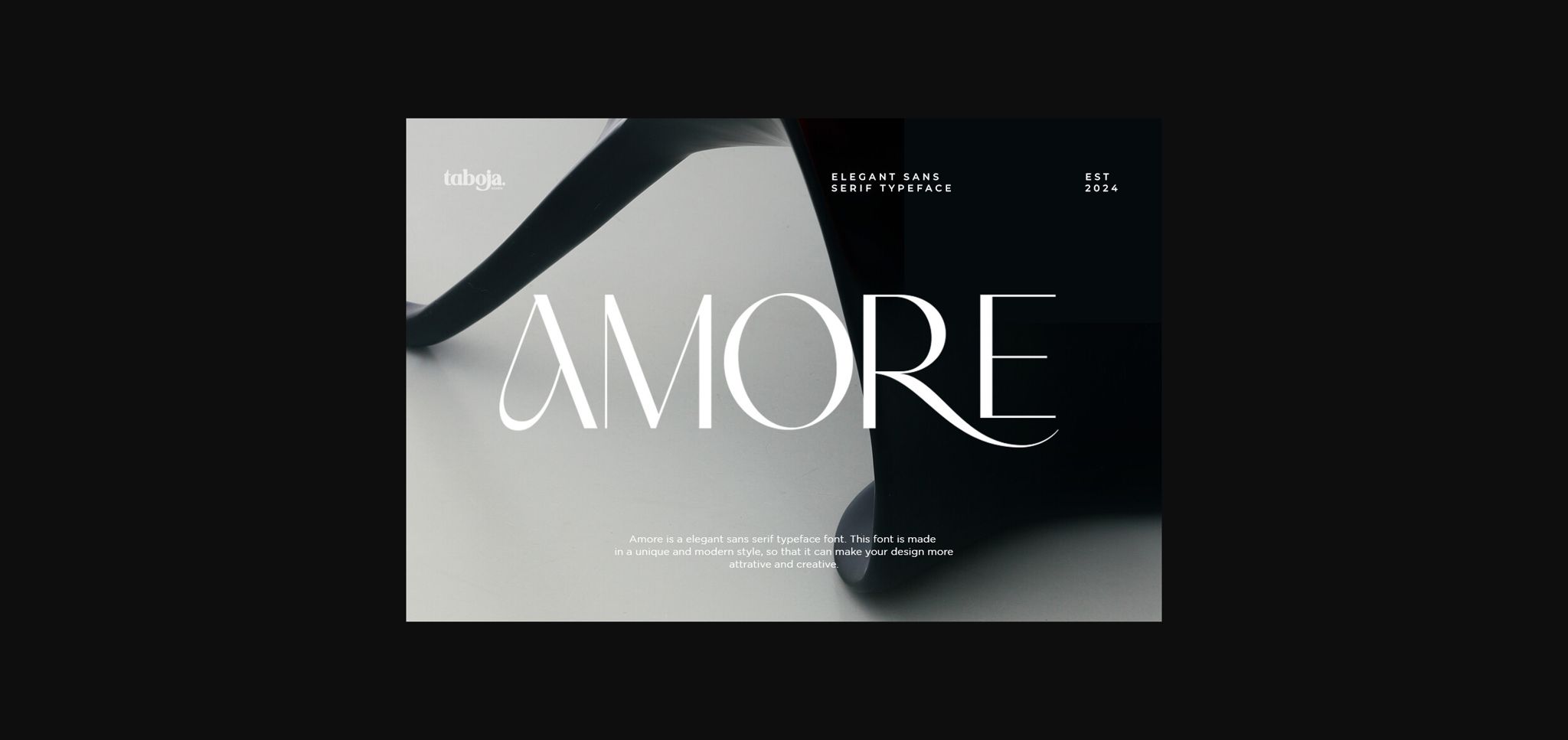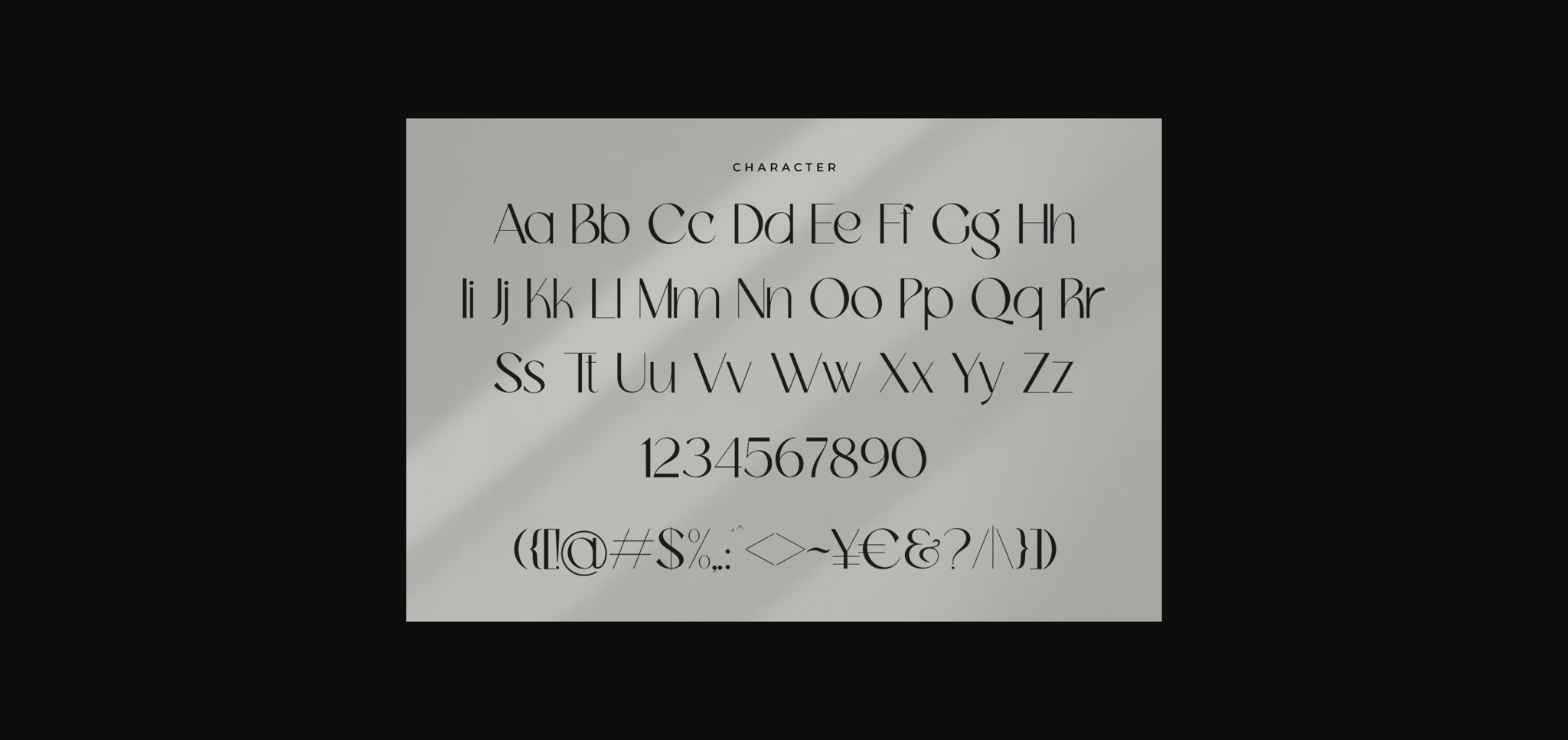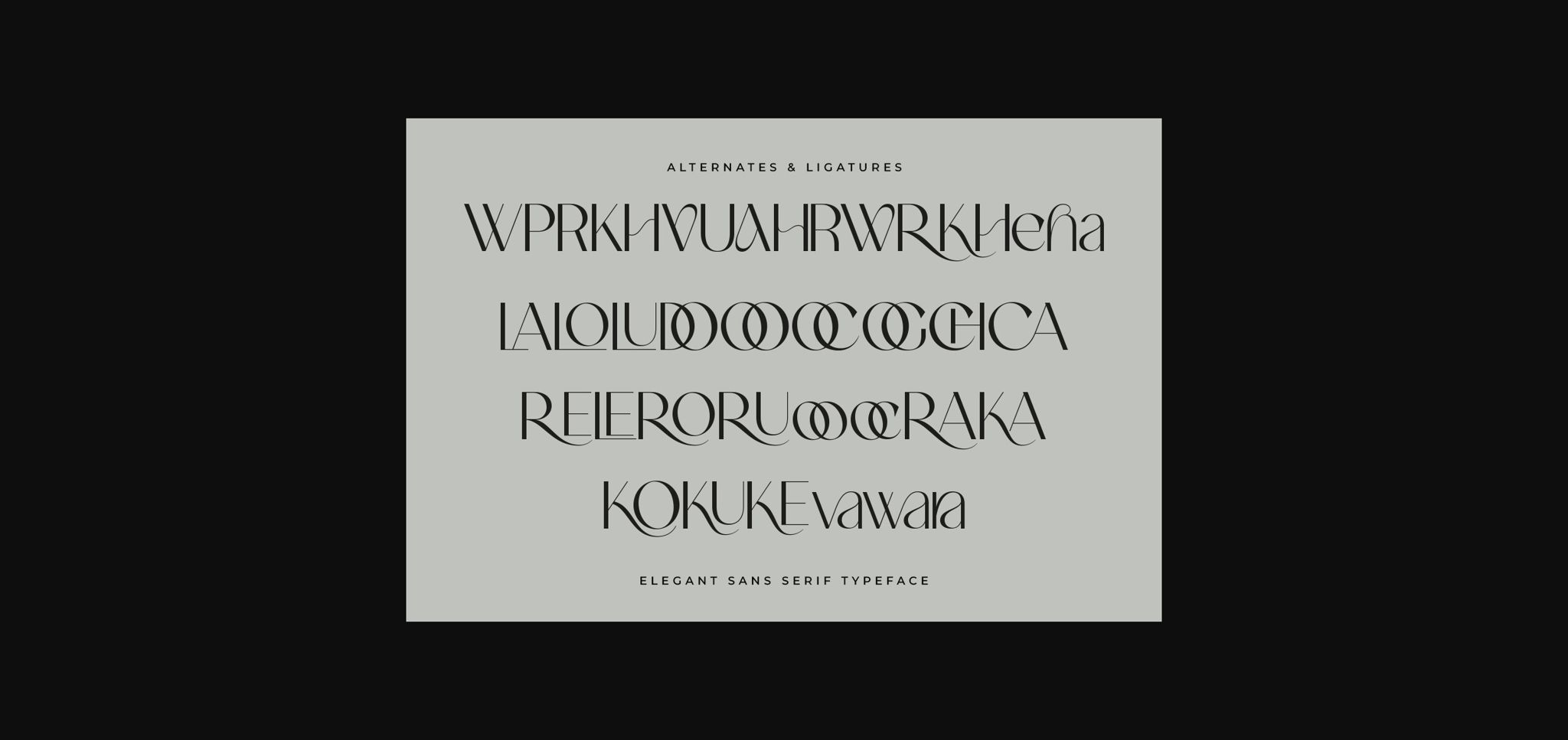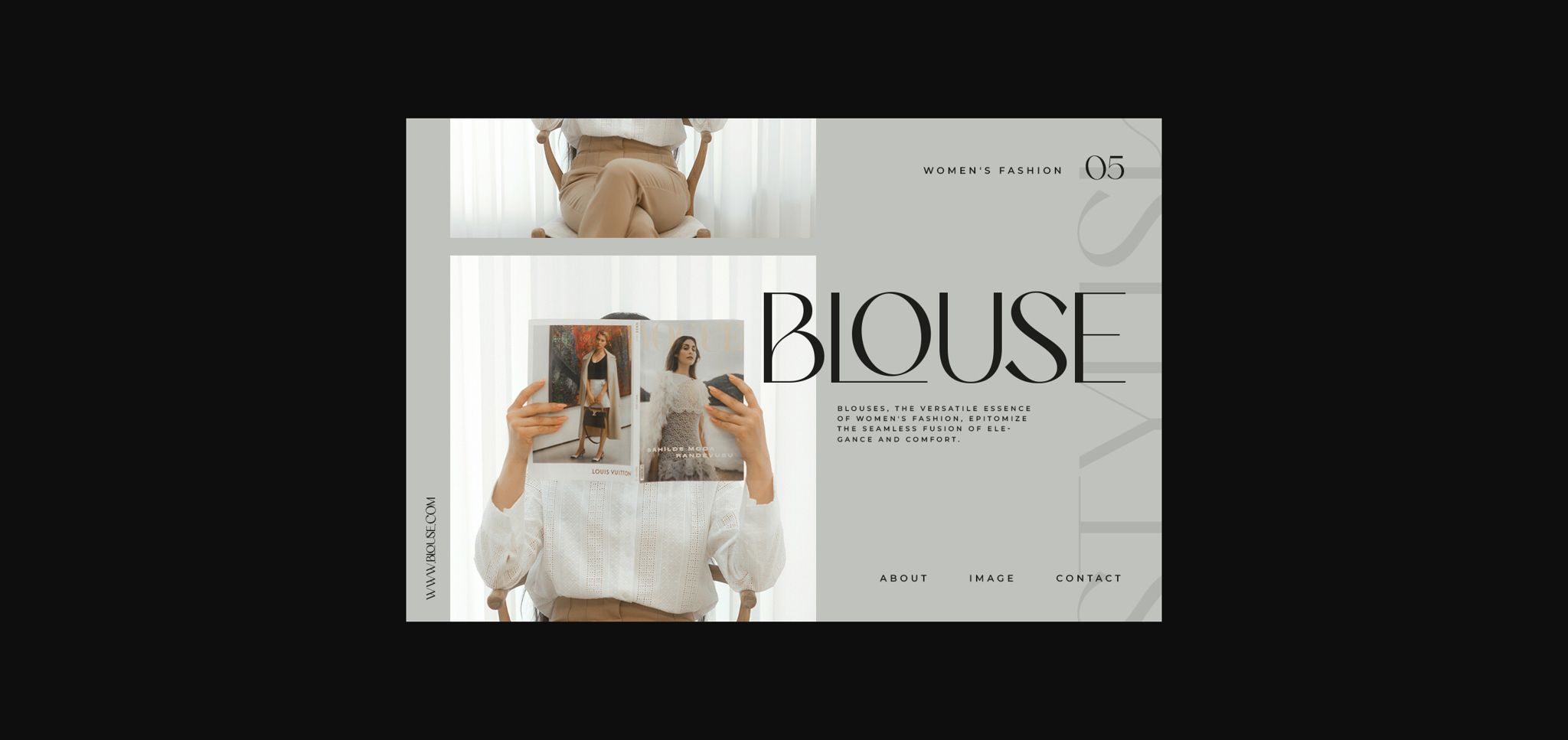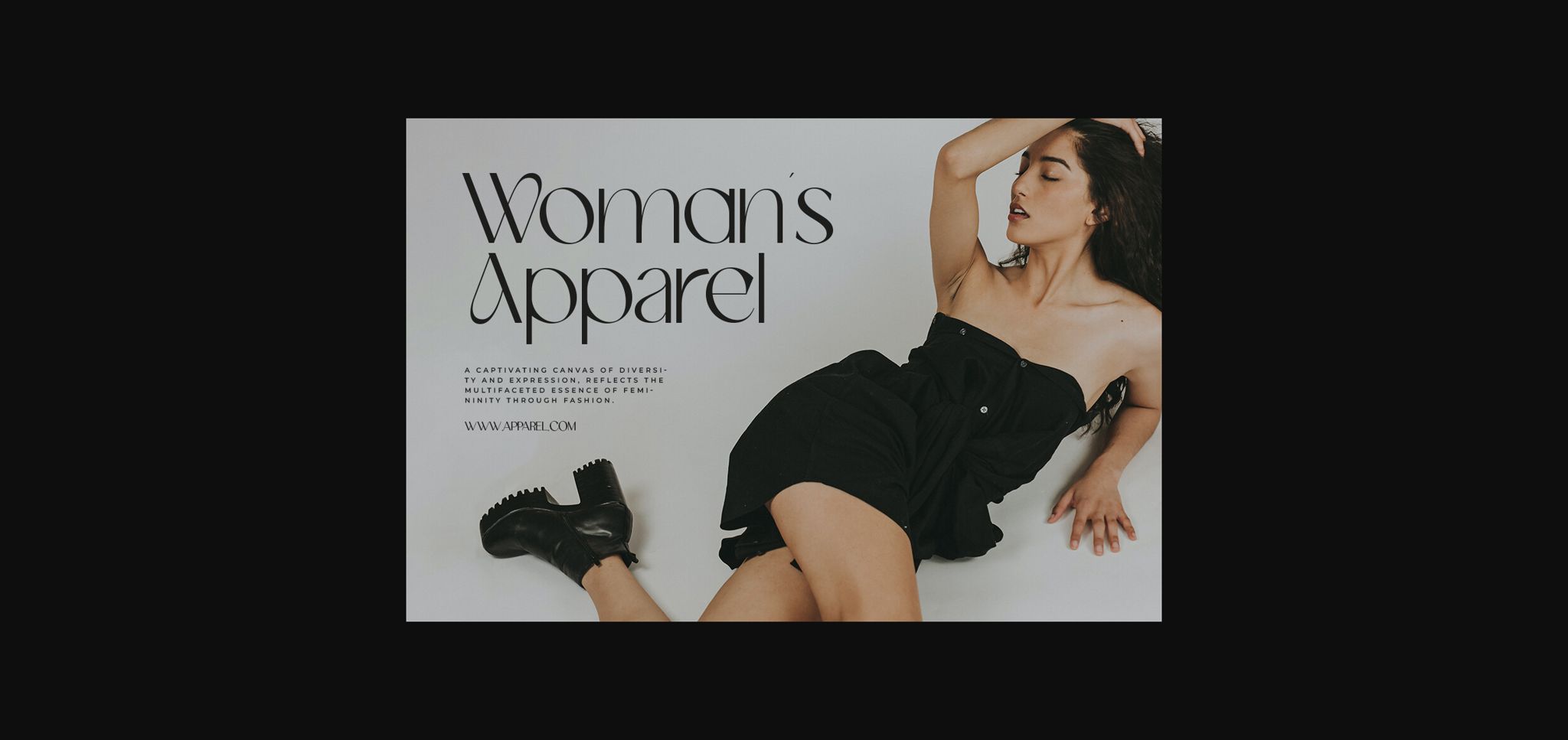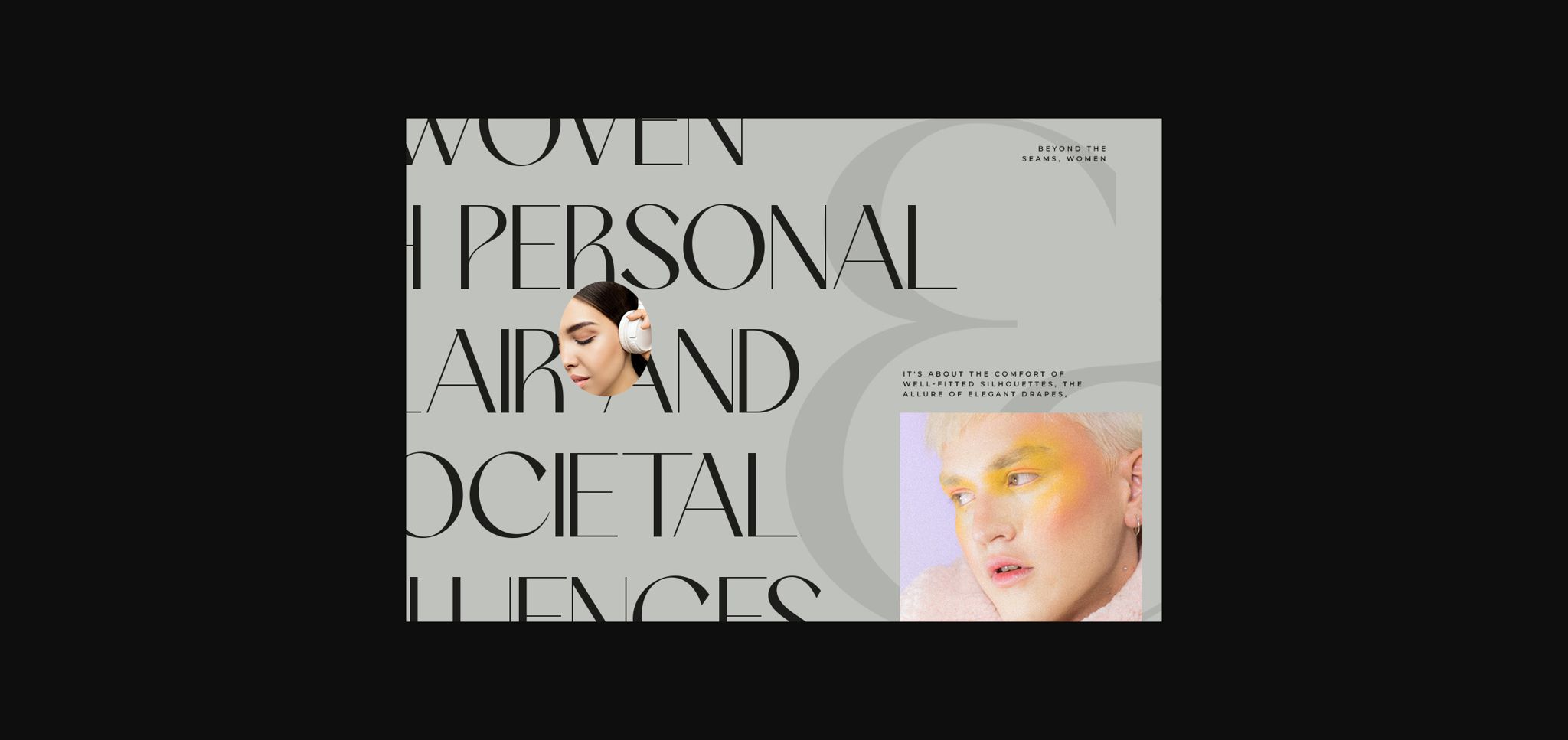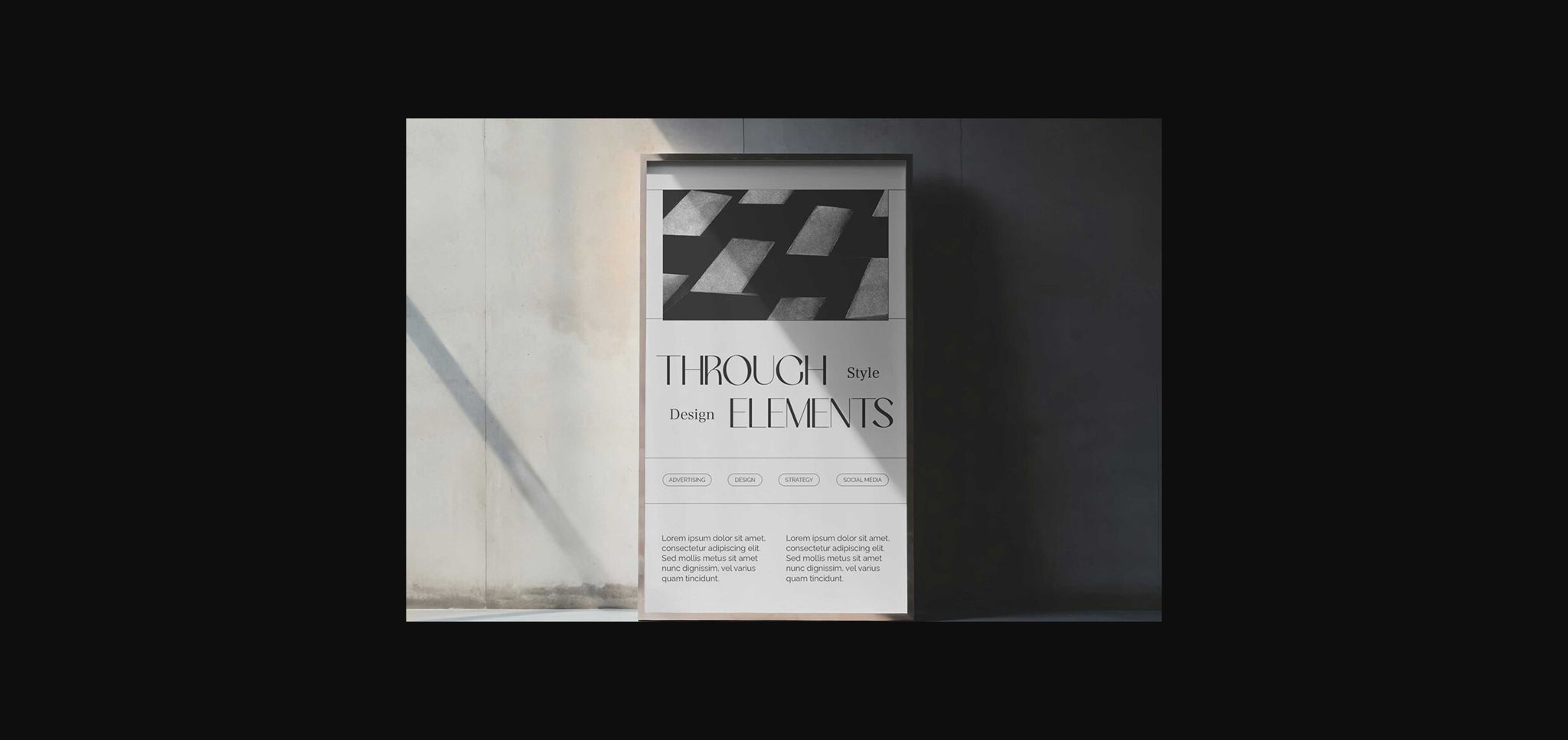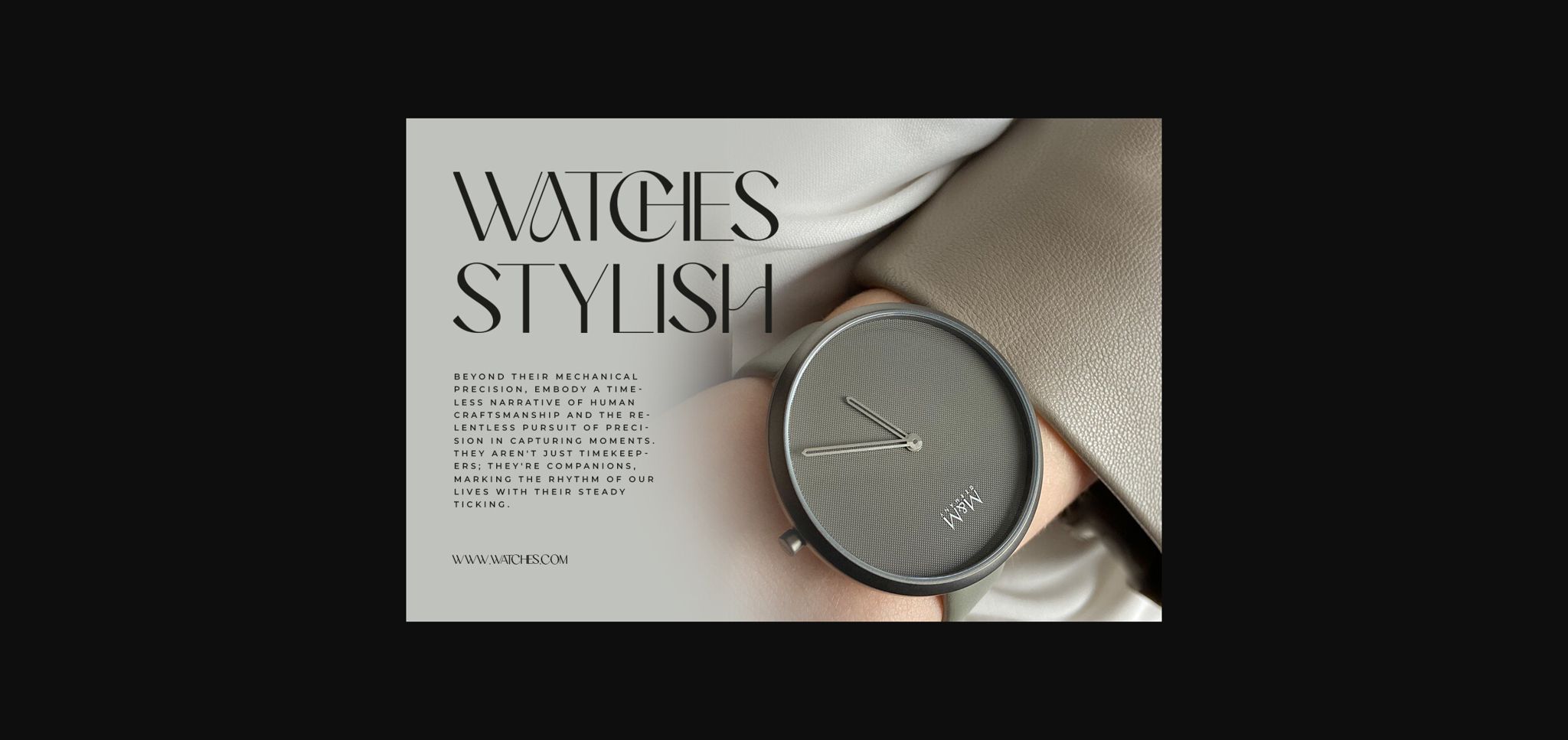
Amore Font
About Amore Font
Introducing Amore Sans Serif Display Font In a serene elegance with a touch of boldness, this sans-serif font delicately exudes understated beauty. The striking contrast between thick and thin lines creates a visually captivating harmony, capturing the essence of modern simplicity.
Showcase your unique identity through an engaging logo design! Utilize our exclusive font to add a personal touch to your logo. With distinctive characters and captivating typographic beauty, this font will leave an unforgettable impression, bringing your brand vision to life with elegance.